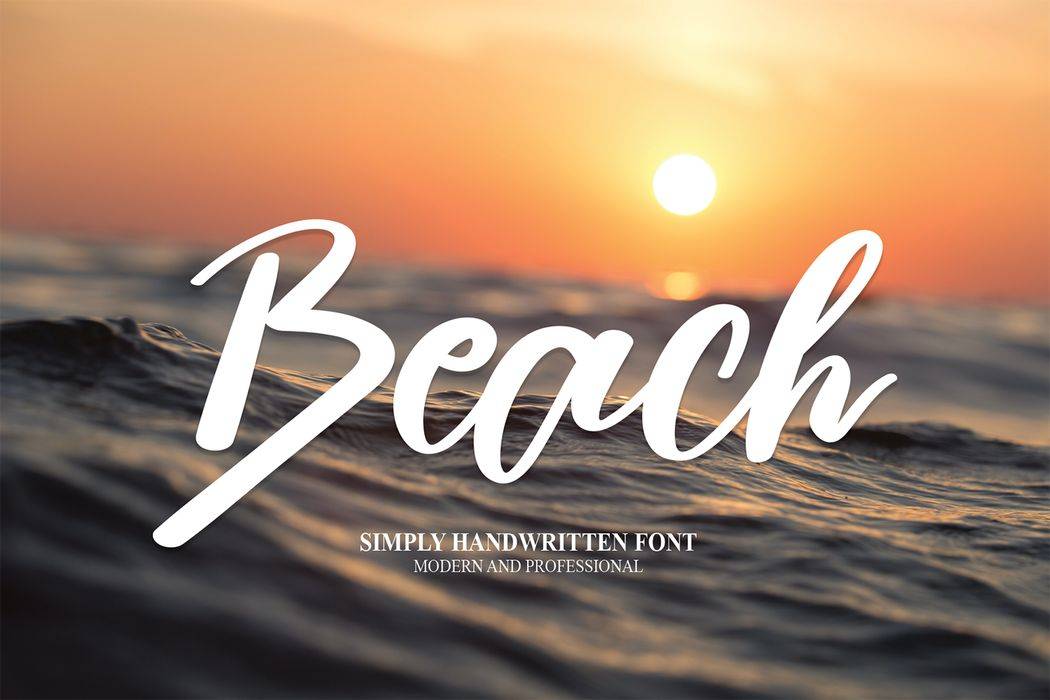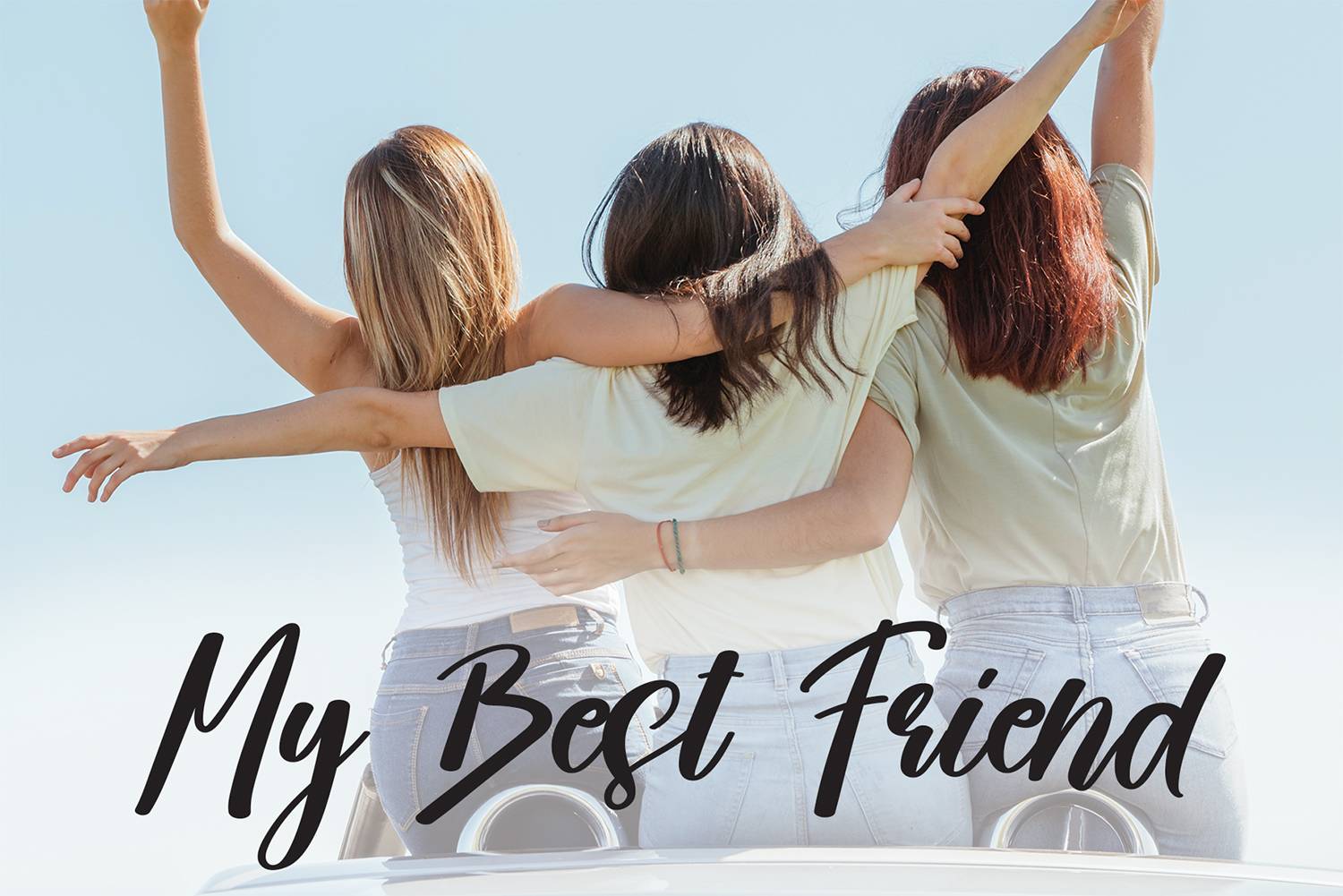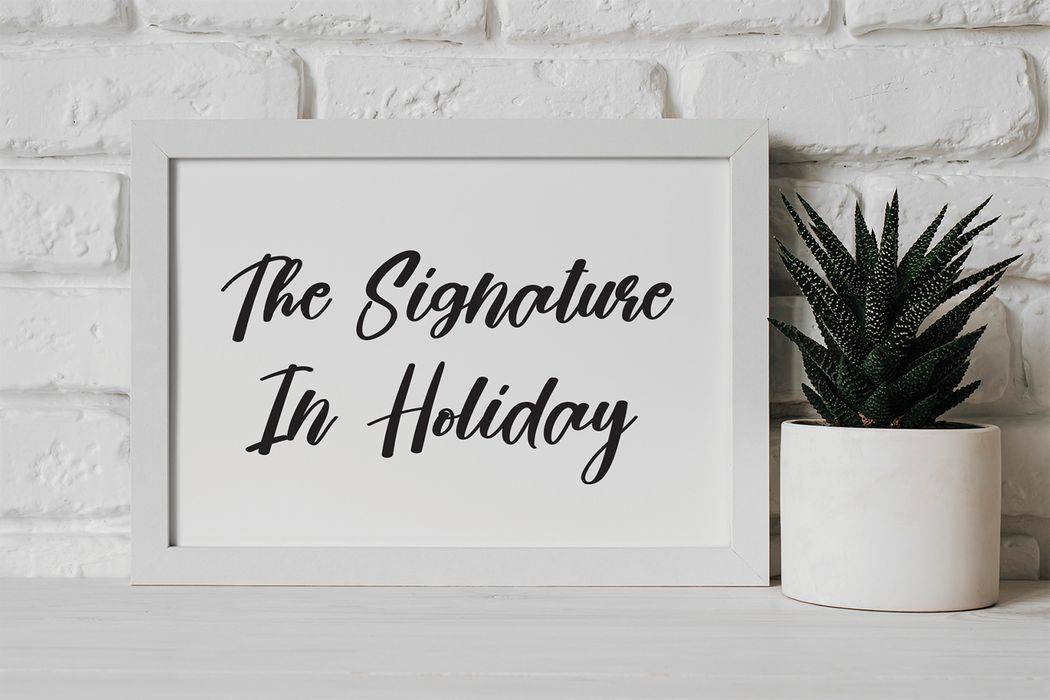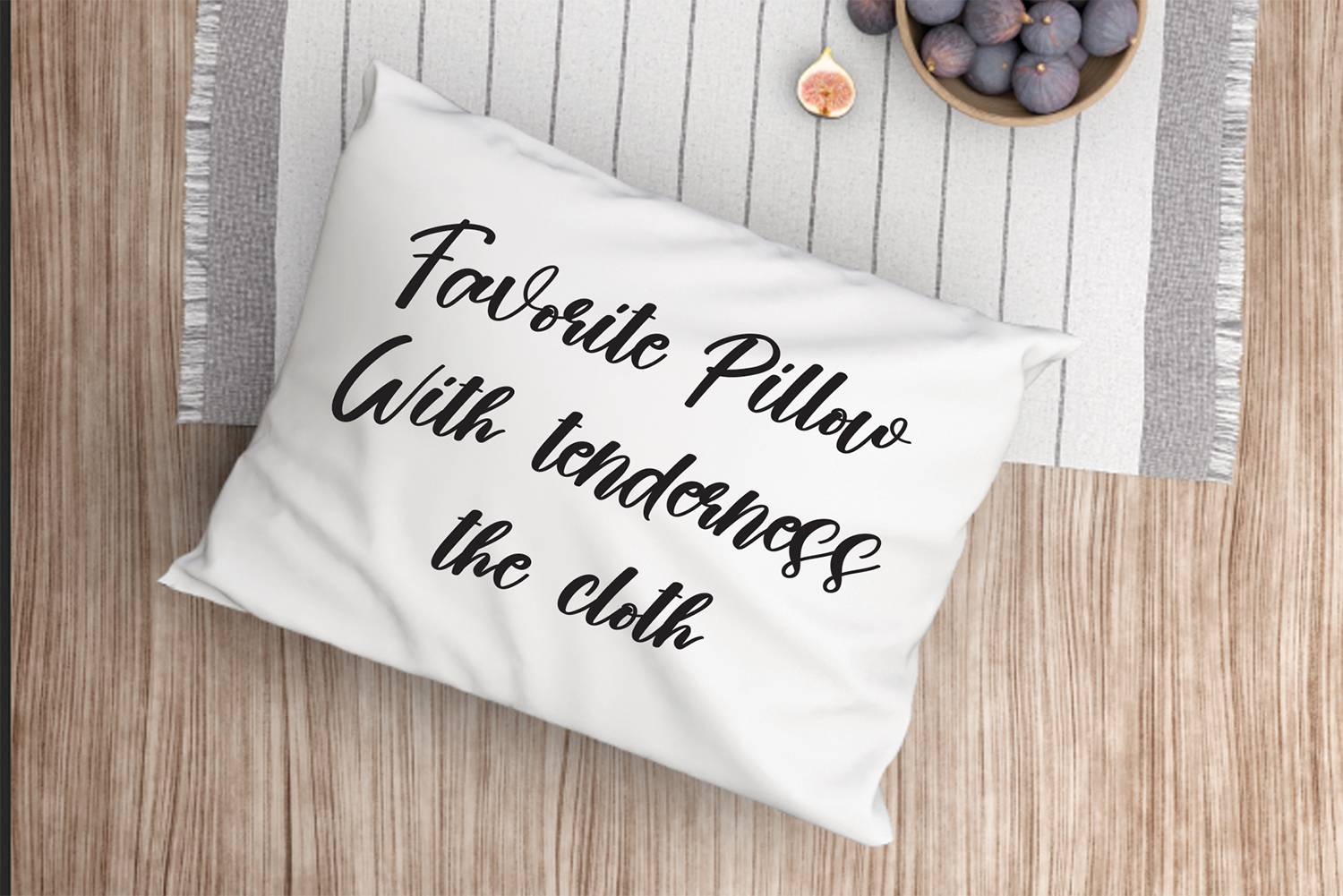
Beach Font is a casual and energetic script typeface with a hand-painted feel, featuring fluid, slightly slanted strokes and bold contrasts that give it a lively personality. Its smooth, flowing letterforms and playful curves make it ideal for branding, invitations, and creative projects that want to convey a friendly, approachable, and stylish vibe. This font works well in headlines and logos where a dynamic, informal touch is desired.
Beach Font